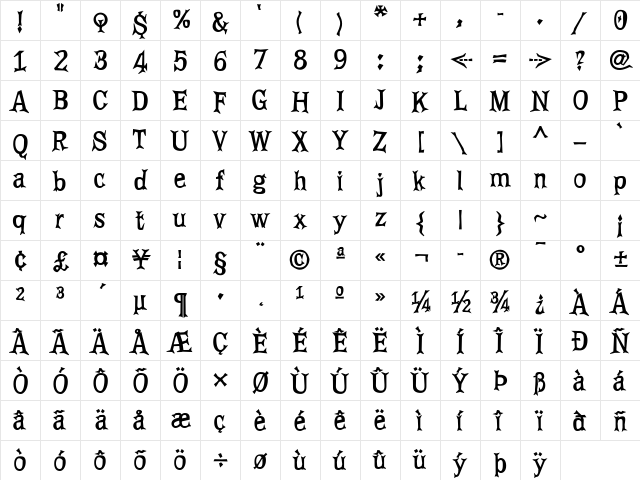
Complete PriskaSerif Bold glyph index. Displaying only characters natively supported by PriskaSerif Bold font.
PriskaSerif carries the refined structure of traditional serif typography, with bracketed terminals and considered proportions that communicate credibility and craft. Its bold stroke weight gives it real presence on the page.
Pro Tip: Use PriskaSerif for editorial body copy and considered headline work. Pair with a neutral sans for UI elements or captions to create a classic hierarchy.